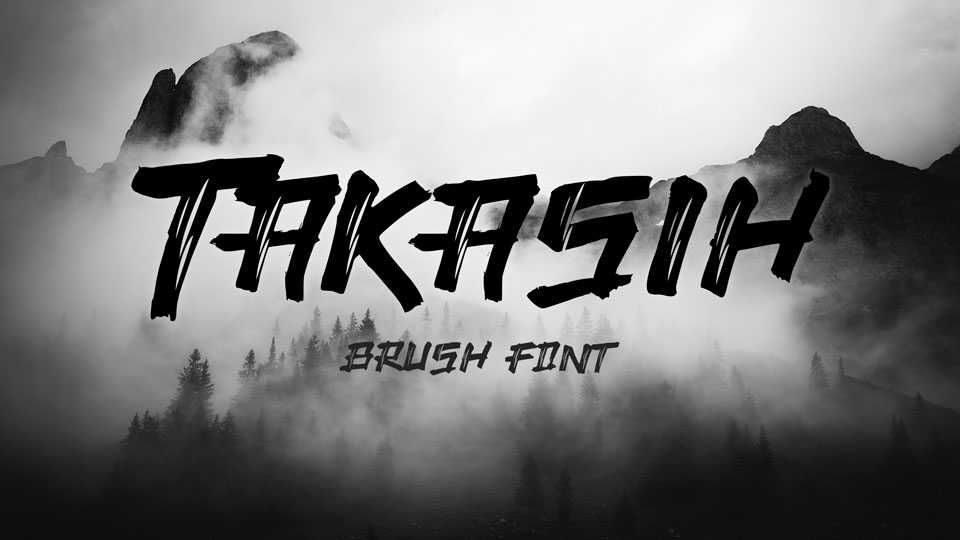
Download Takasih font, a bold and strong hand painted brush font with own personality. It looks great for eye-catching posters, headlines, logos, apparel and other craft designs.
Designer: Selawetype